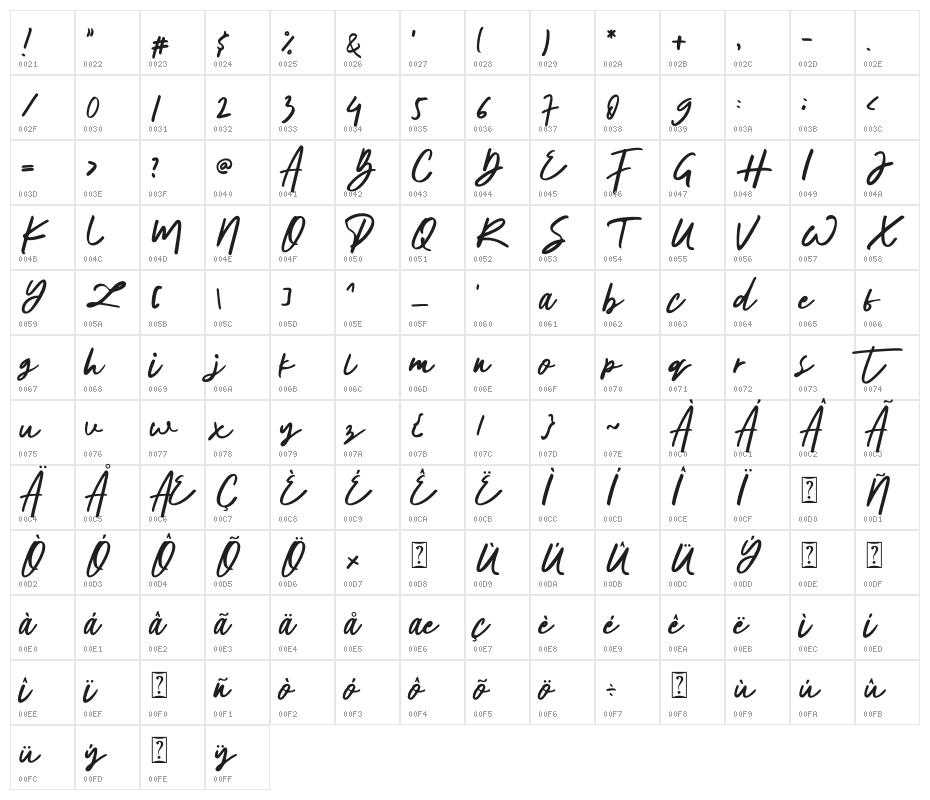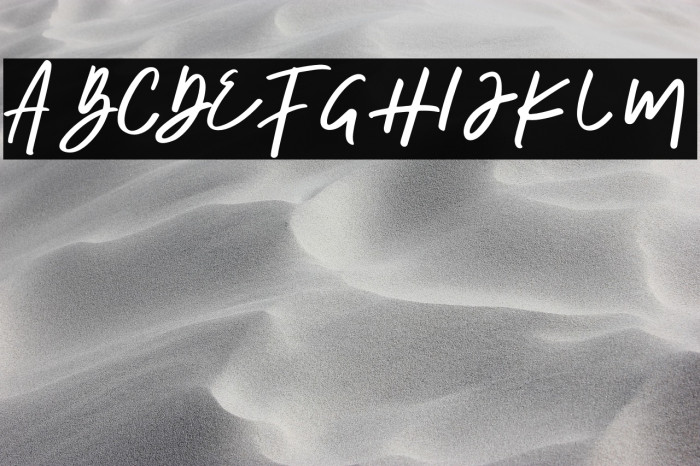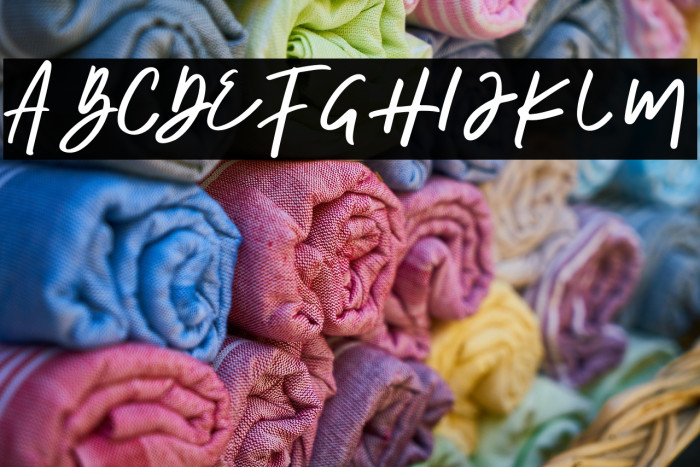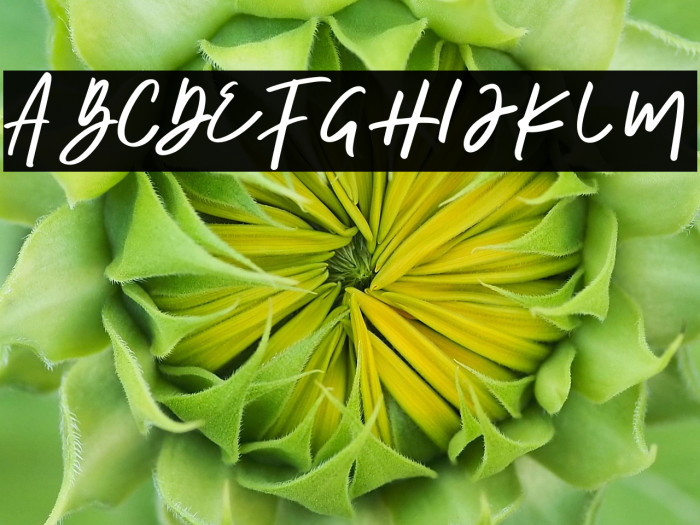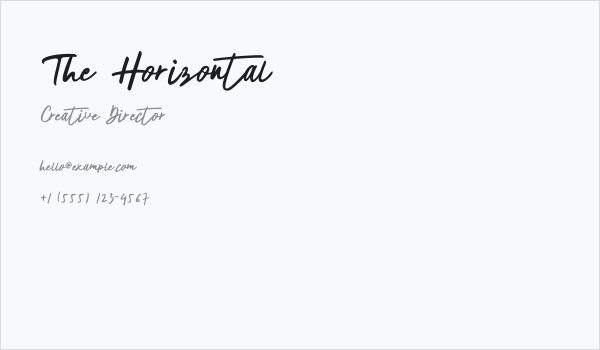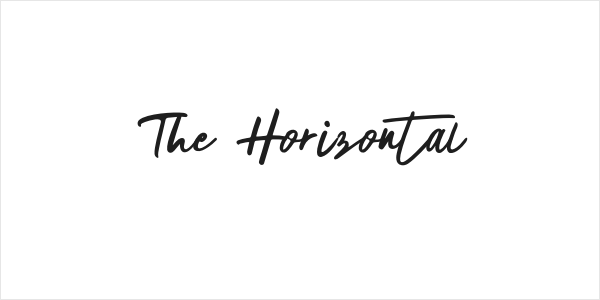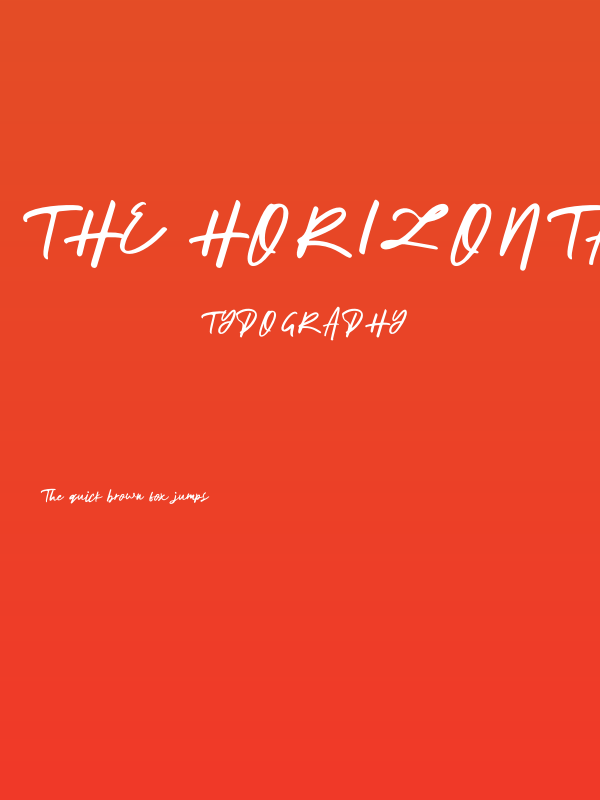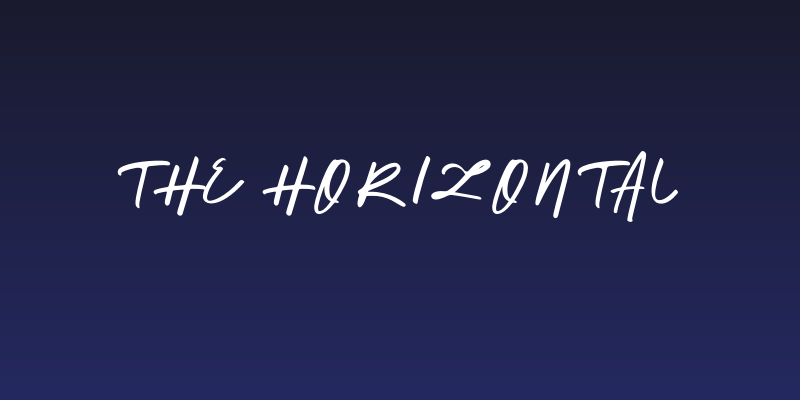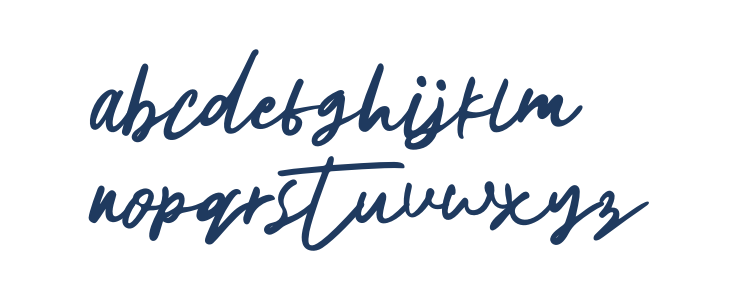
The Horizontal Font
The Horizontal Description
This font exudes a casual and dynamic handwritten style, characterized by its fluid and connected letterforms. The strokes are bold and confident, with a slight slant that adds to its energetic appearance. The uppercase letters maintain a consistent height, while the lowercase letters exhibit a playful variation in size, enhancing its informal charm. The numerals are clear and legible, matching the overall aesthetic. Special characters are integrated seamlessly, maintaining the font's cohesive look. This style is perfect for projects that require a personal touch or a creative flair.
| Overall Style | Casual, Energetic, Creative |
| Proposed Projects | Ideal for greeting cards, invitations, personal branding, and creative social media graphics. |